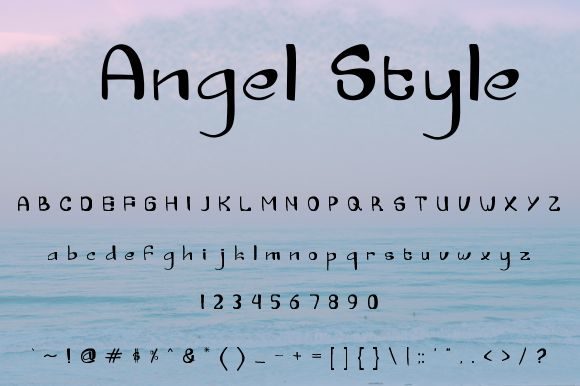
The Heavenly Appeal of Angel Style Font
I’ll never forget the time I was working on a project for a client’s wedding invitation suite. I had the design concept nailed down, but I was struggling to find the perfect font to bring it all together. The client wanted something elegant, whimsical, and romantic – and I was determined to deliver. That’s when I stumbled upon Angel Style Font, and it was love at first sight! 💕
Angel Style is a beautiful script font that can be used for various design products, such as logos, brands, invitations, taglines, publications, templates, and much more! Its versatility and charm have made it a staple in my design library, and I’m excited to share its awesomeness with you.
What I Love About Angel Style Font ✨
• 💫 Elegant and sophisticated, perfect for high-end designs
• 🎨 Versatile and adaptable to various design styles
• 🔥 Supports OpenType features, glyphs, and stylistic alternates
• ⚠️ Some characters may require manual kerning for optimal spacing
• 🤔 Limited availability of condensed or bold weights
The Designer Inspiration Behind Angel Style Font
Angel Style Font was inspired by the work of renowned calligraphers and typographers who sought to create a font that would evoke the beauty and elegance of the divine. The font’s creator, a talented designer with a passion for typography, aimed to craft a font that would be both sophisticated and approachable. And, with Angel Style Font, they certainly succeeded! 😊
Q: What type of designs is Angel Style Font best suited for?
A: Angel Style Font is versatile and can be used for various design projects, including logos, invitations, publications, and more!
Q: Does Angel Style Font support OpenType features?
A: Yes, Angel Style Font supports OpenType features, glyphs, and stylistic alternates, making it a great choice for designers who want to add an extra layer of creativity to their work.
Q: Is Angel Style Font easy to read?
A: Yes, Angel Style Font is highly legible, even at small font sizes, making it perfect for body text and other applications where readability is key.